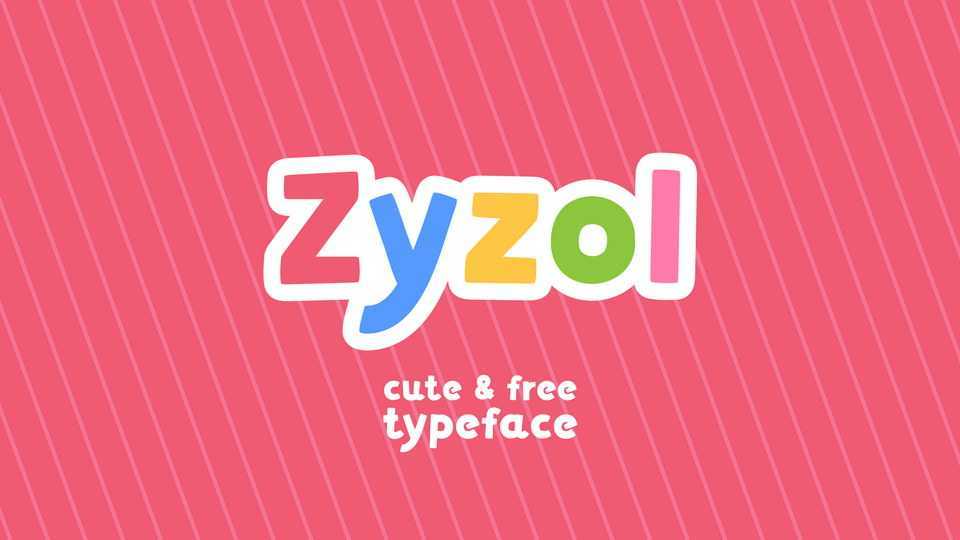
Download Zyzol, a bold and cheerful cartoon display typeface designed to bring energy and personality to your projects. Its rounded shapes, thick strokes and slightly irregular forms give it a fun, approachable look that stands out instantly.